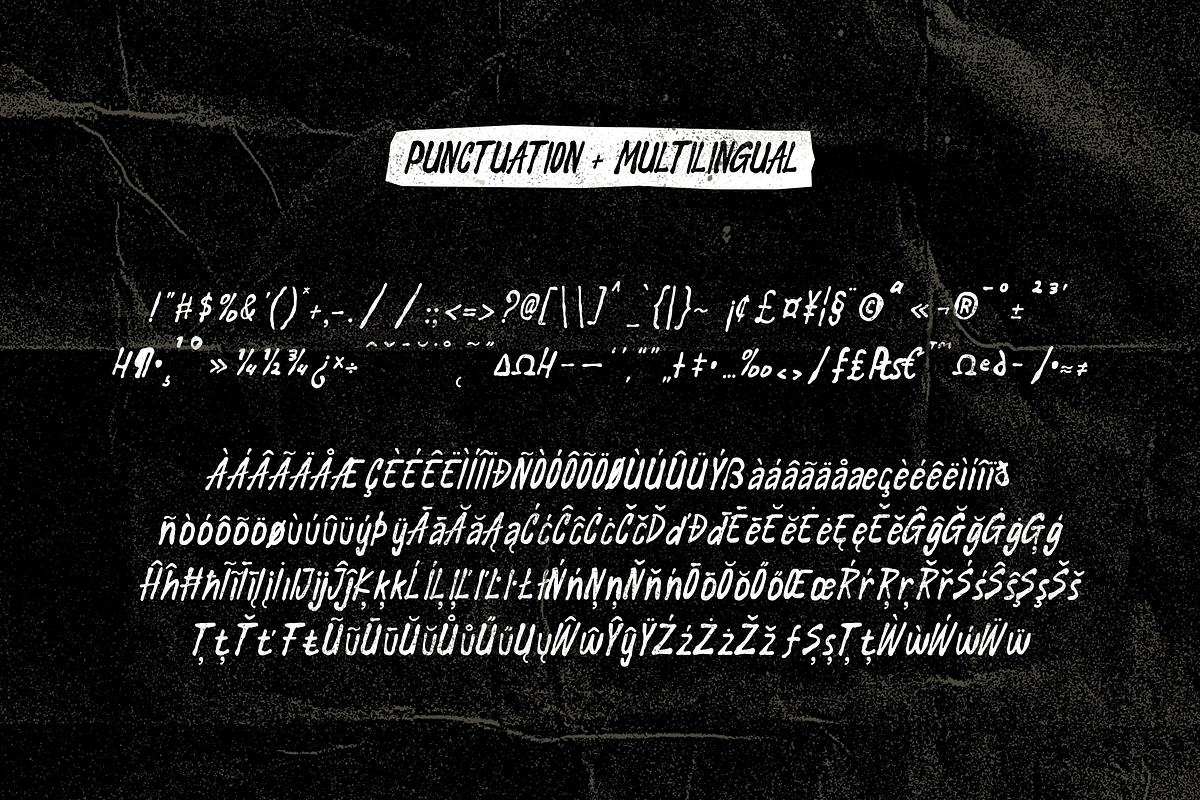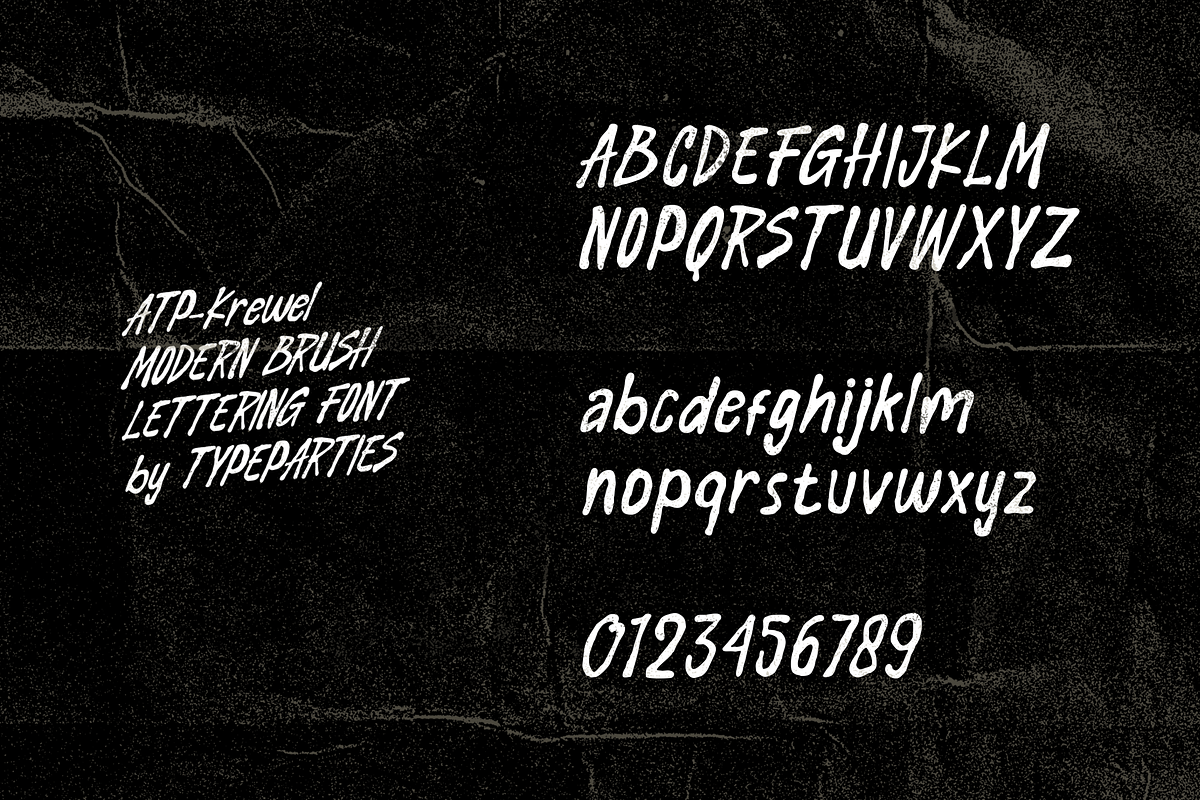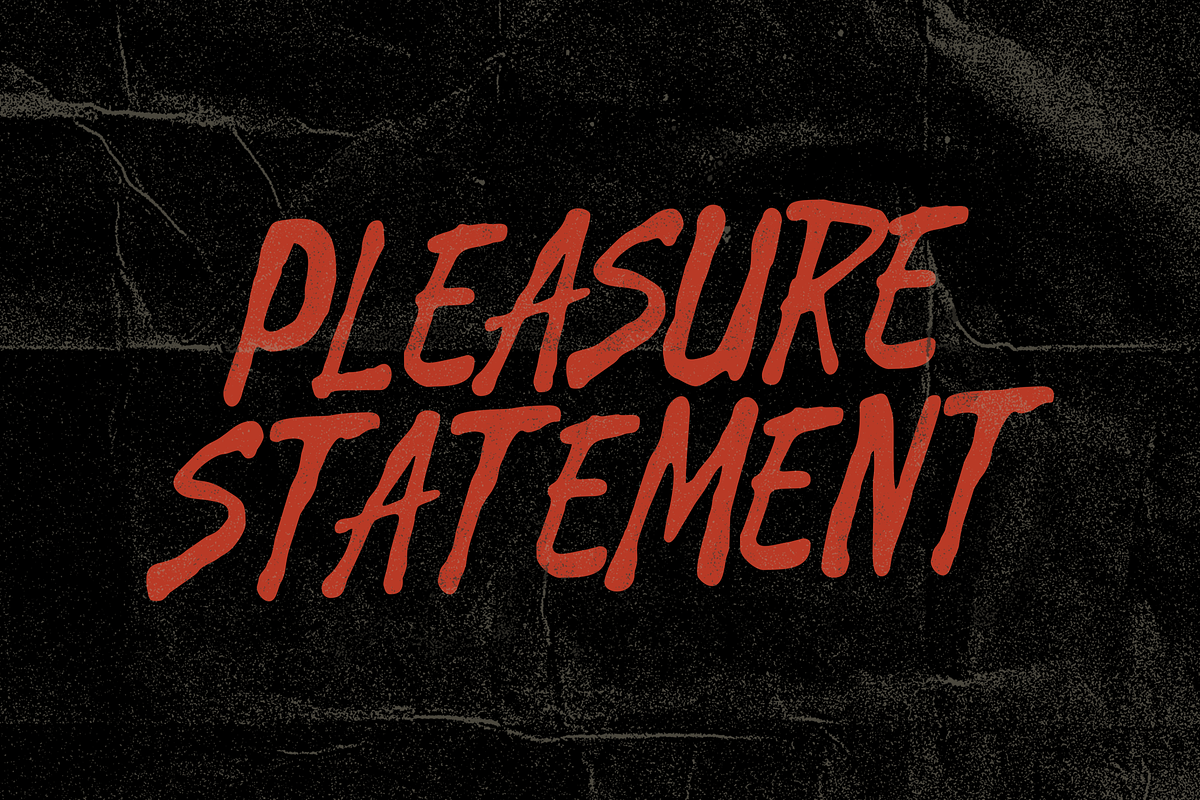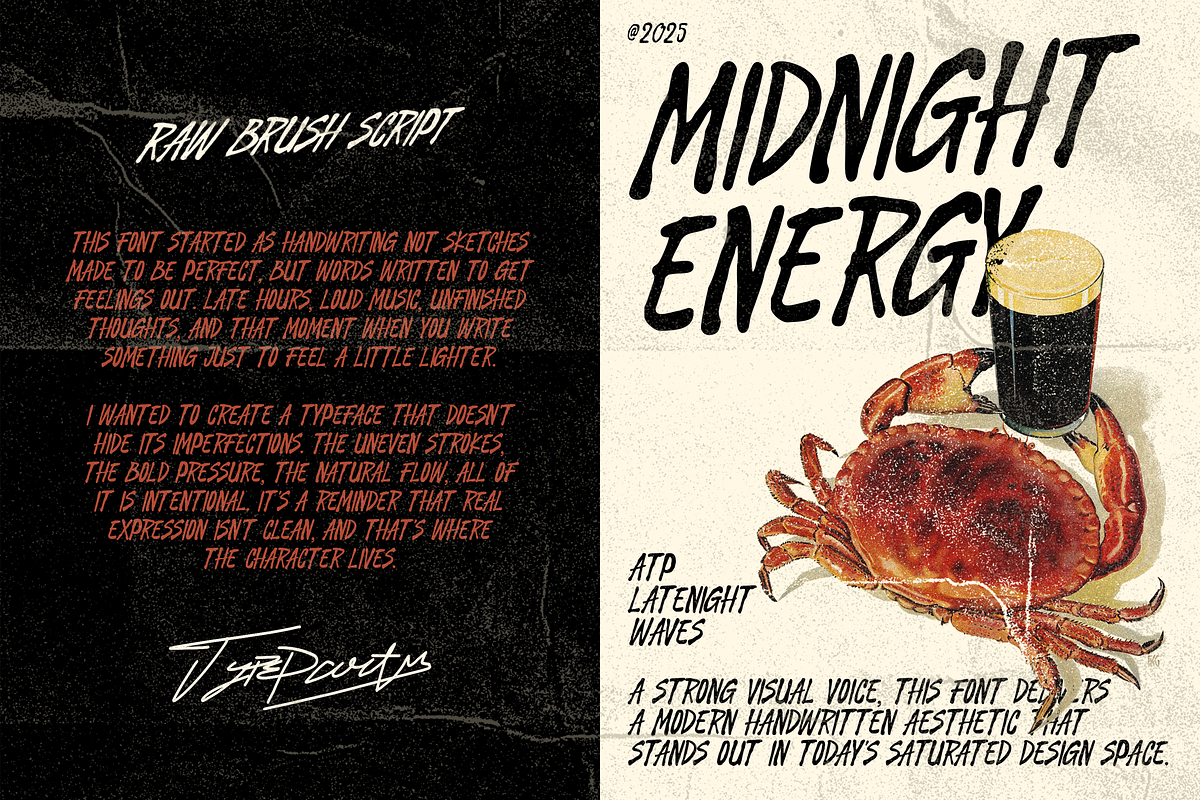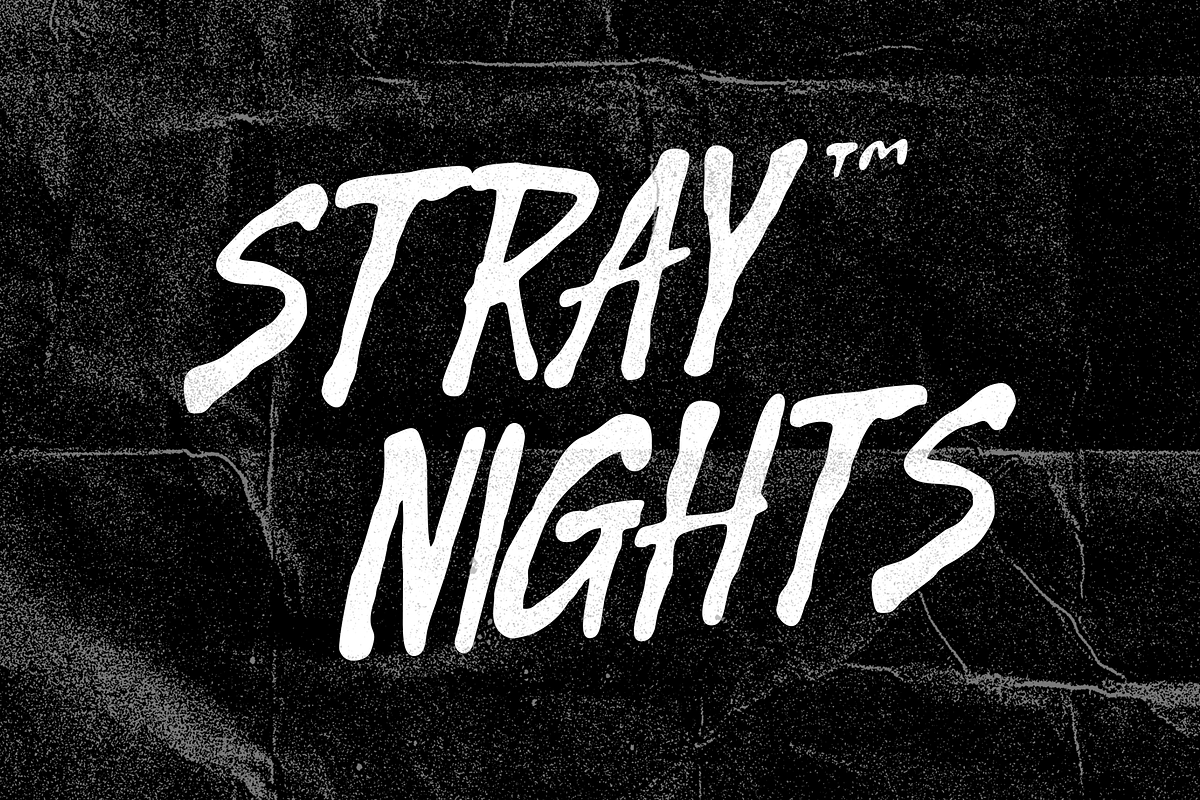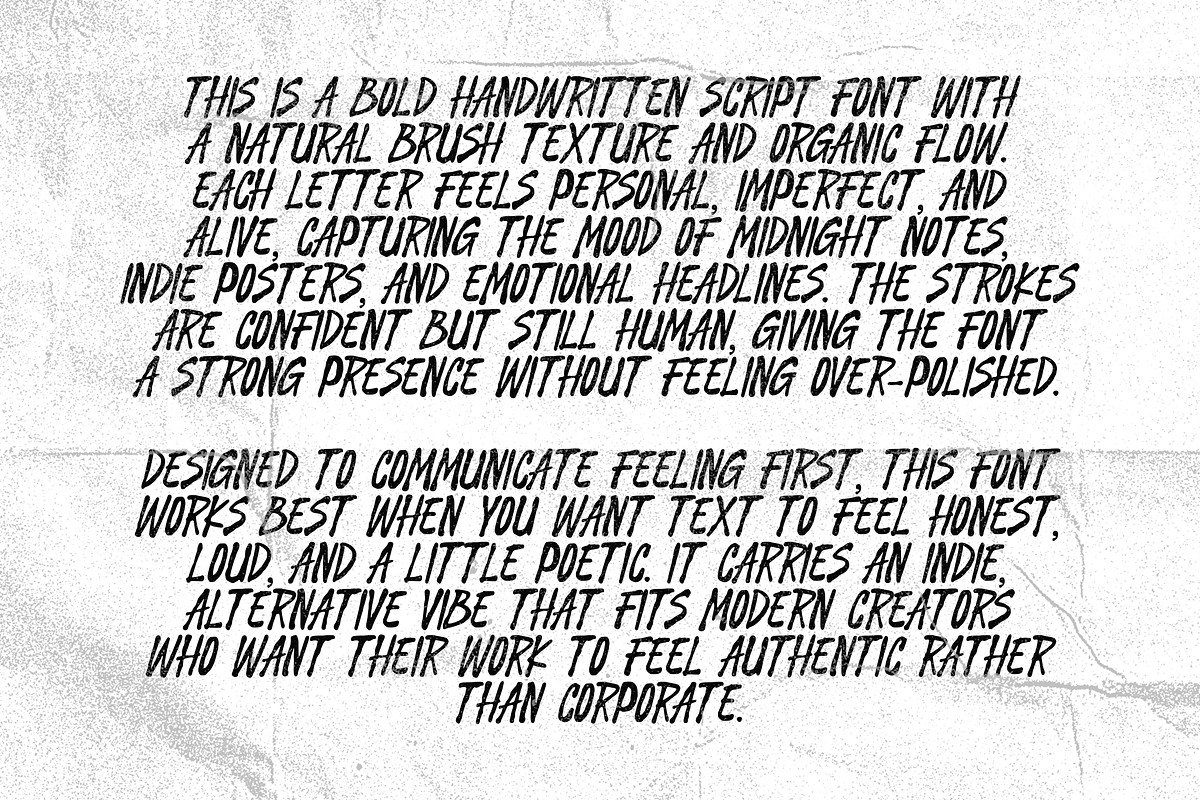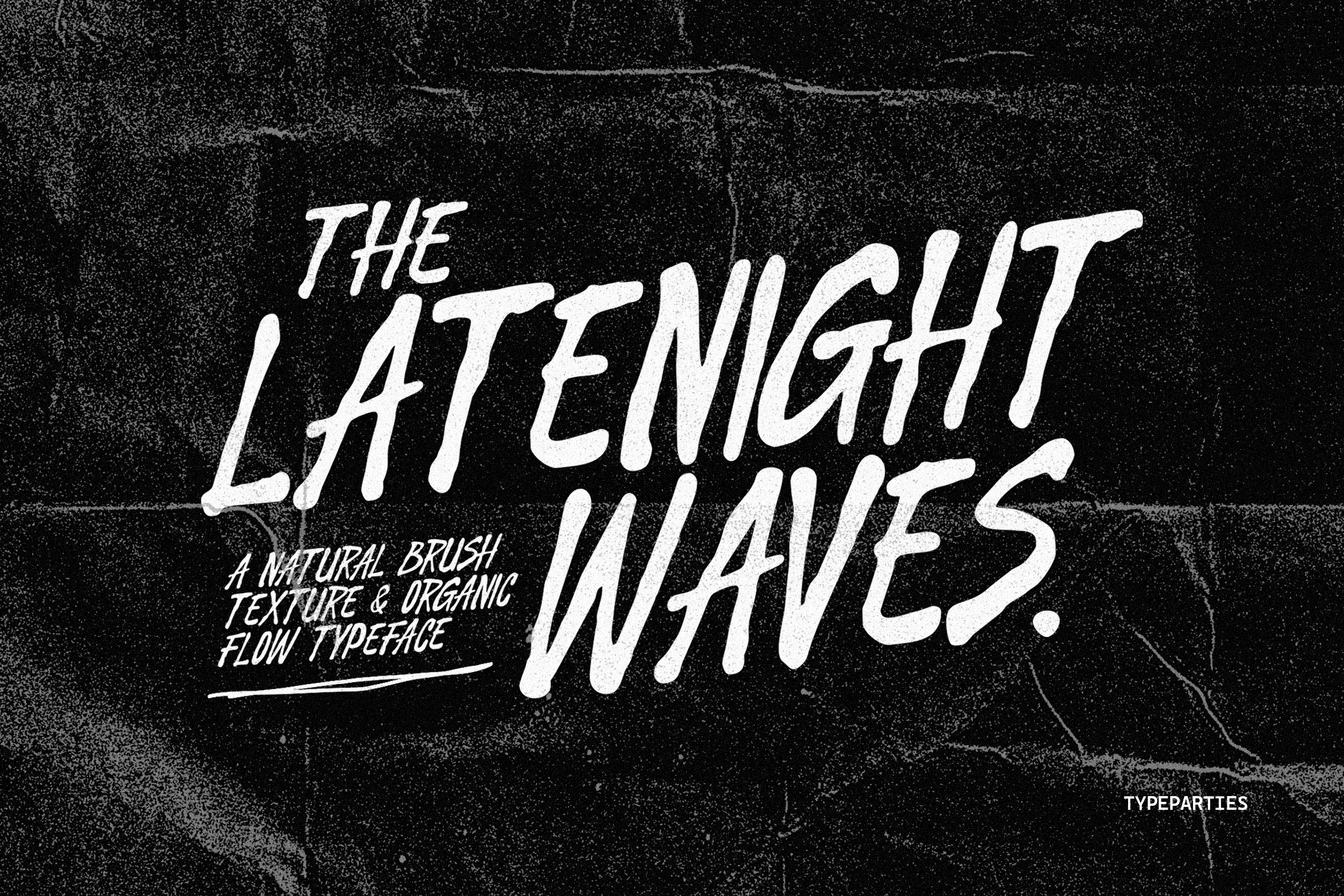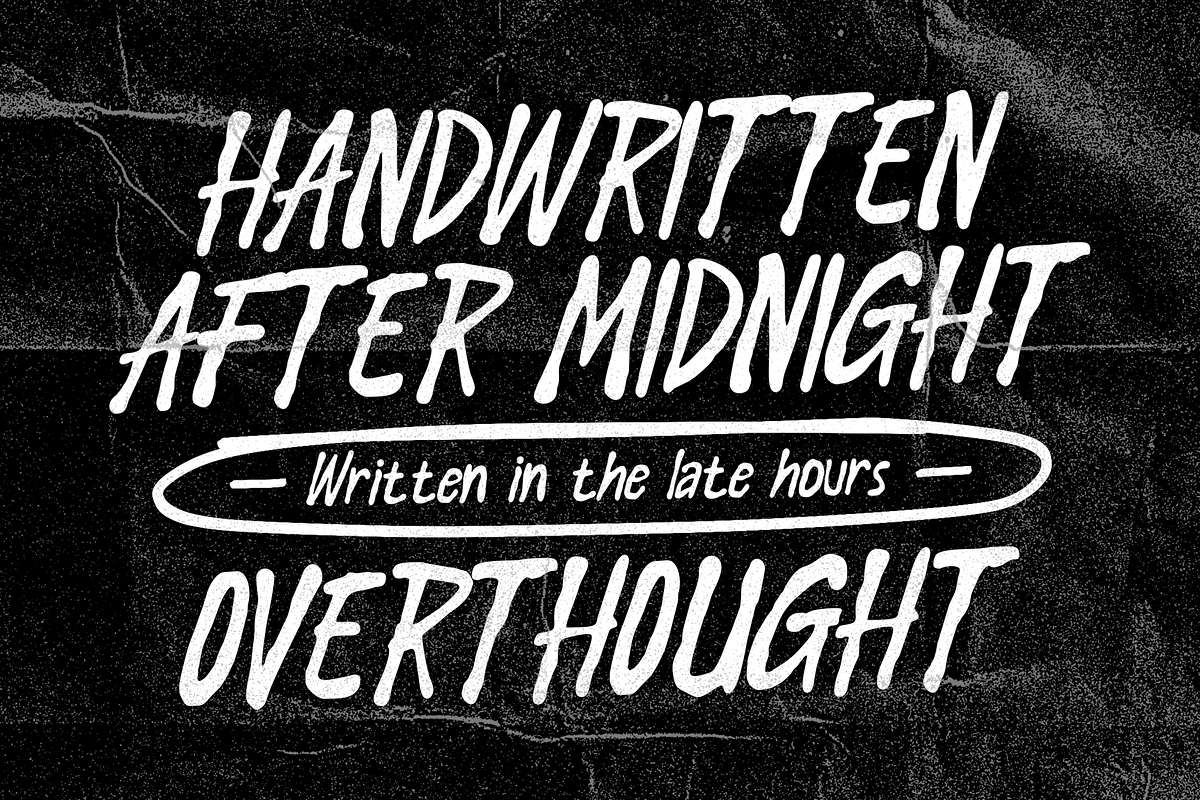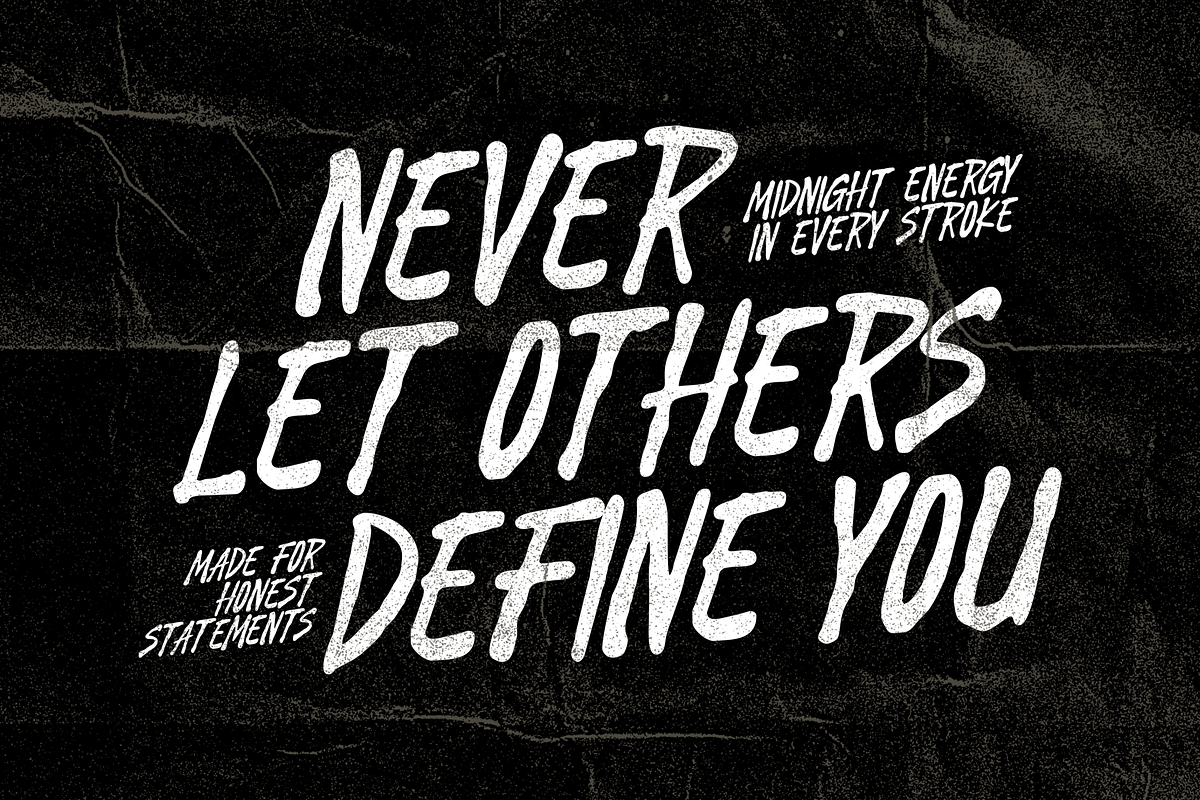
Latenight Waves - Modern Brush Font
This modern handwritten brush script font is designed to feel raw, expressive, and emotionally charged. Inspired by late-night thoughts, indie music culture, and imperfect human strokes, this font brings personality and attitude to every word.
The bold brush texture creates a natural rhythm that feels handwritten, organic, and alive. Each character carries slight imperfections that make the font feel authentic and personal, perfect for designers who want their work to feel real rather than overly polished.